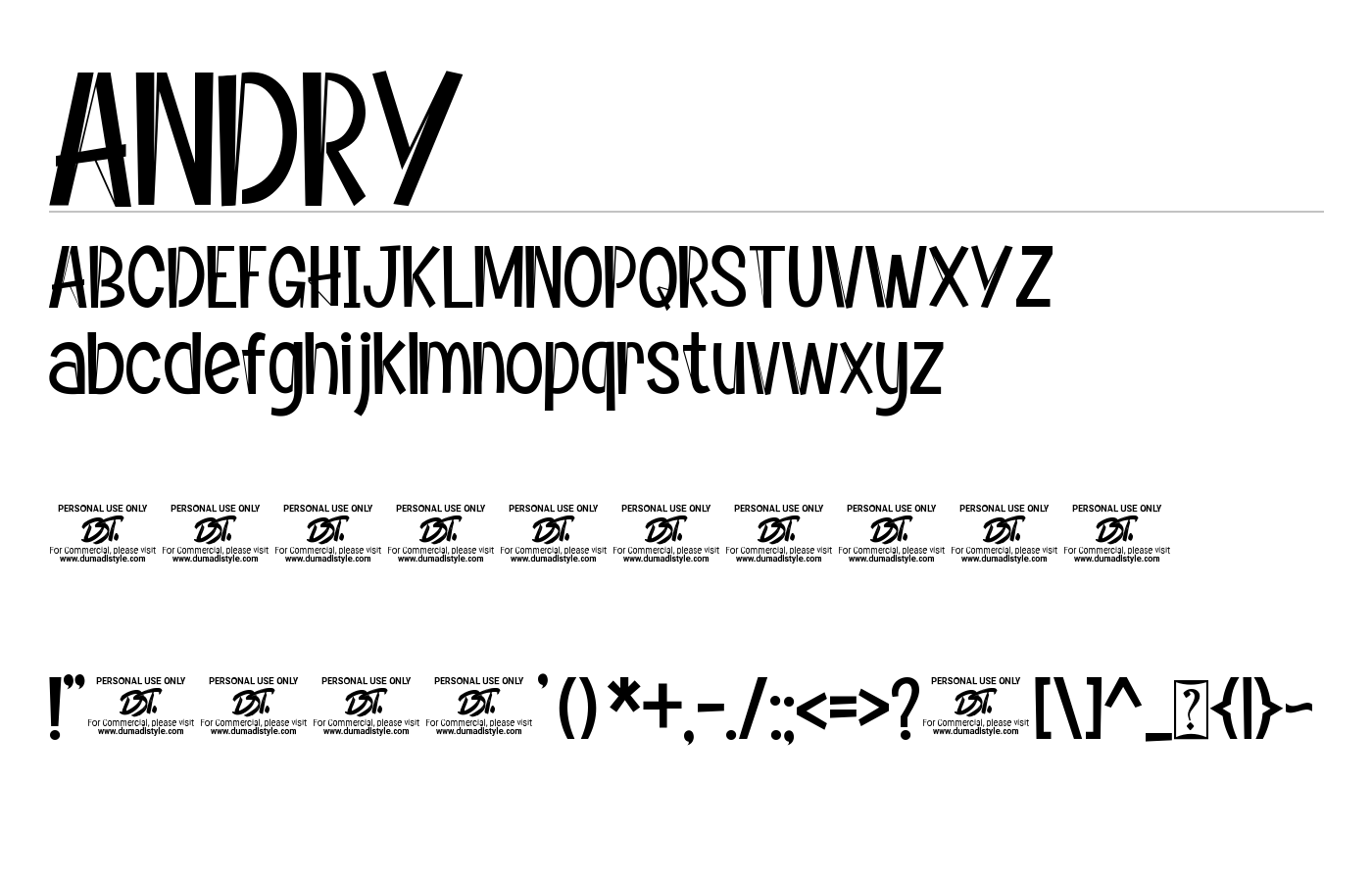
ANDRY is a quirky, narrow sans serif font with a playful, hand-drawn feel. Its tall, condensed letterforms showcase uneven stroke widths and distinctive shapes, giving it an informal, artistic vibe perfect for creative projects, headlines, and branding that want to stand out with a fun and approachable personality.
ANDRY Font
About ANDRY Font